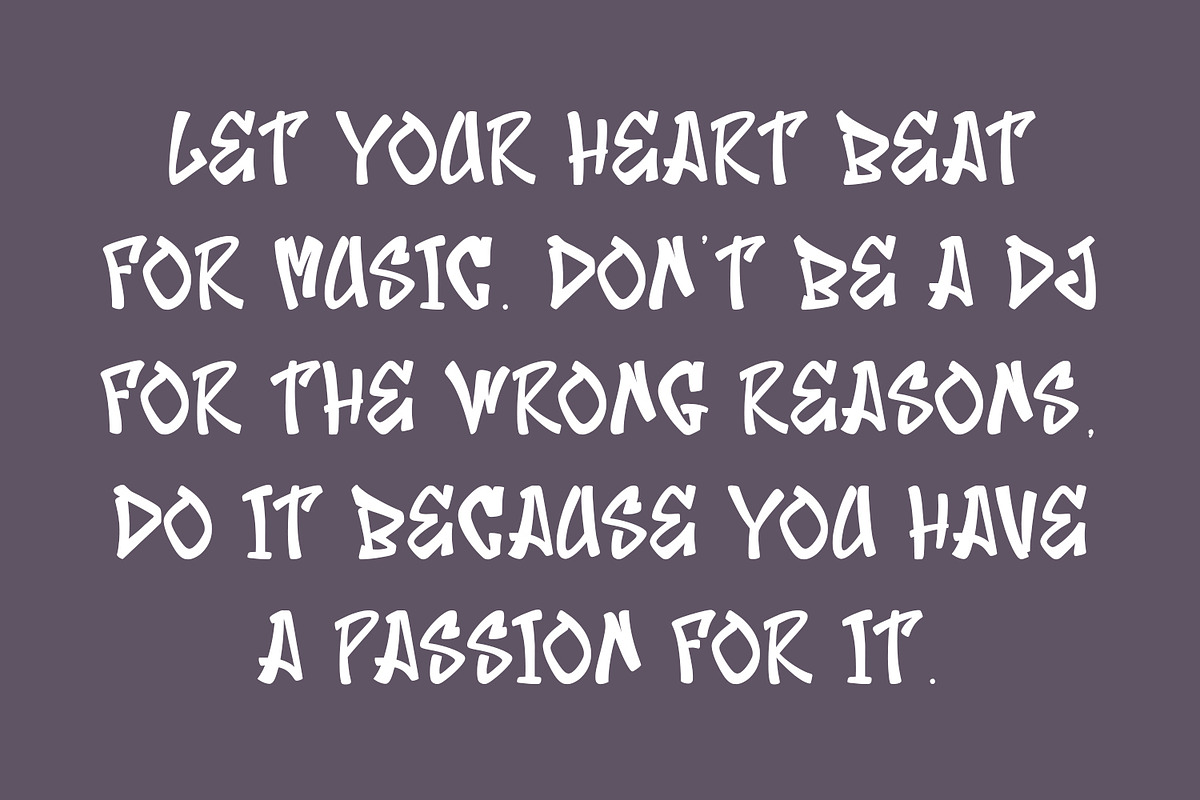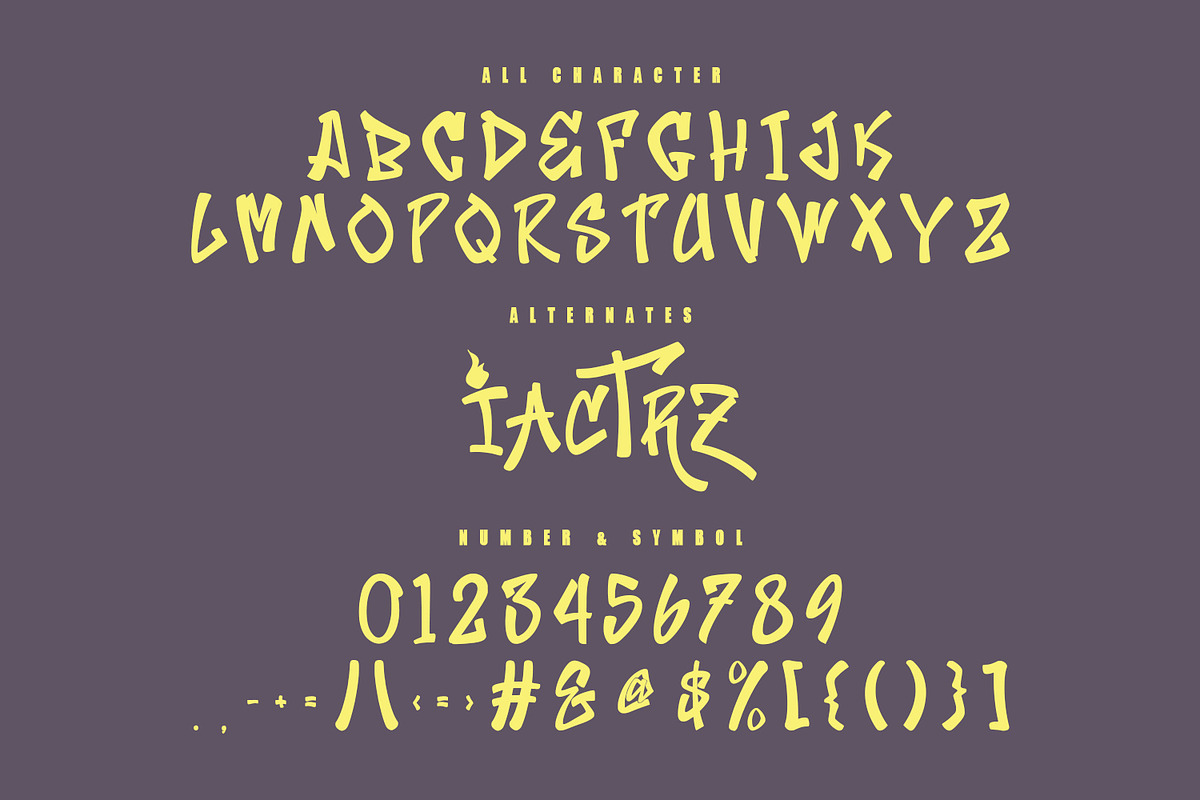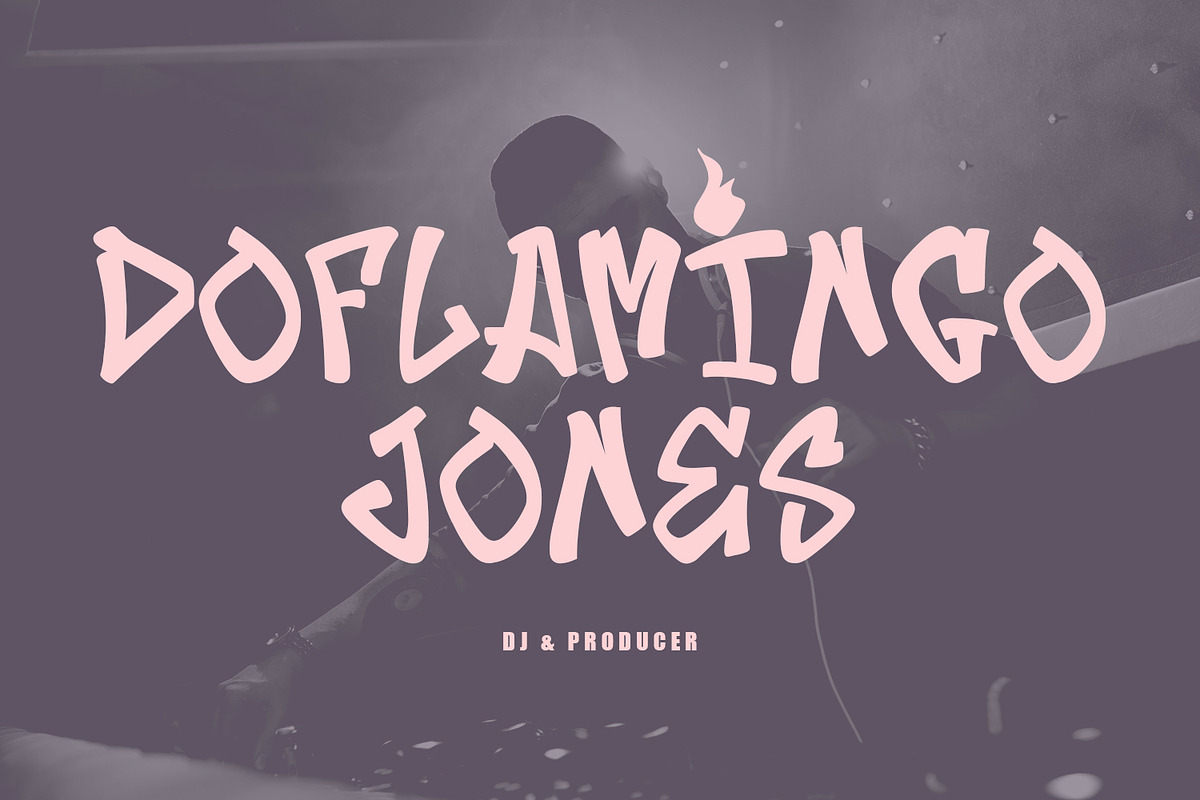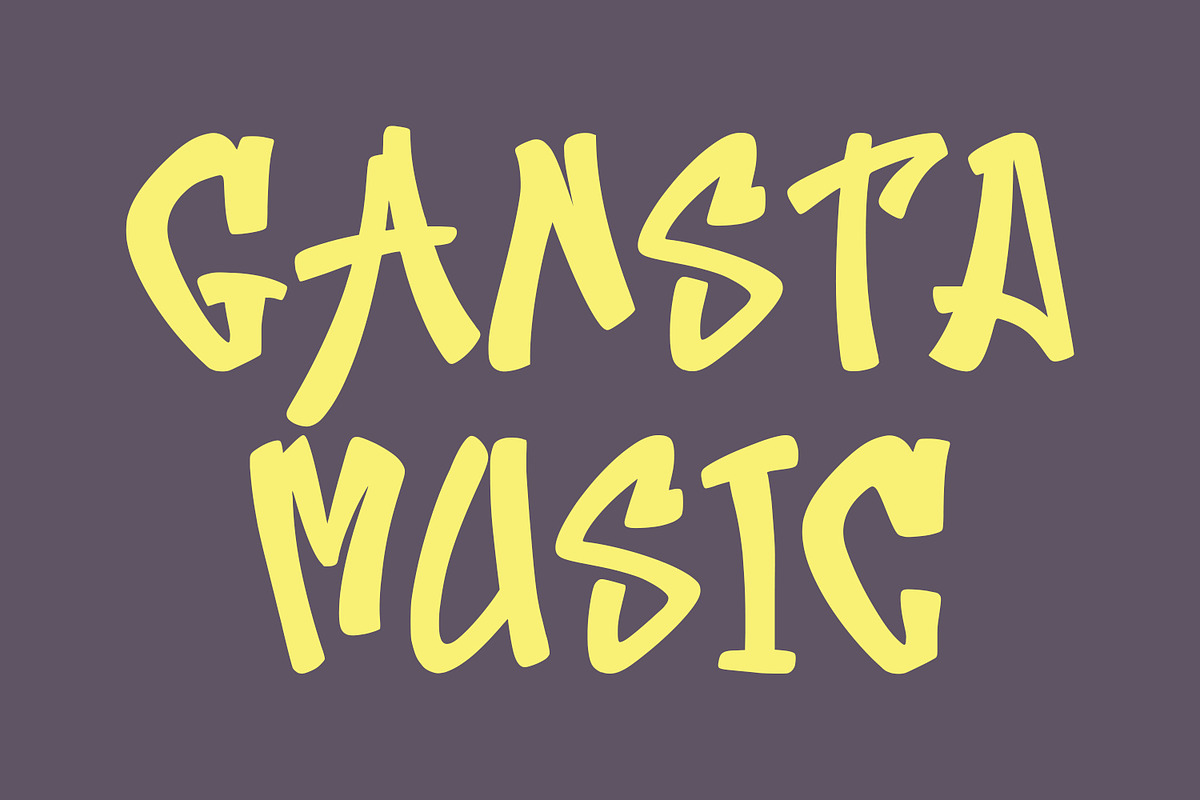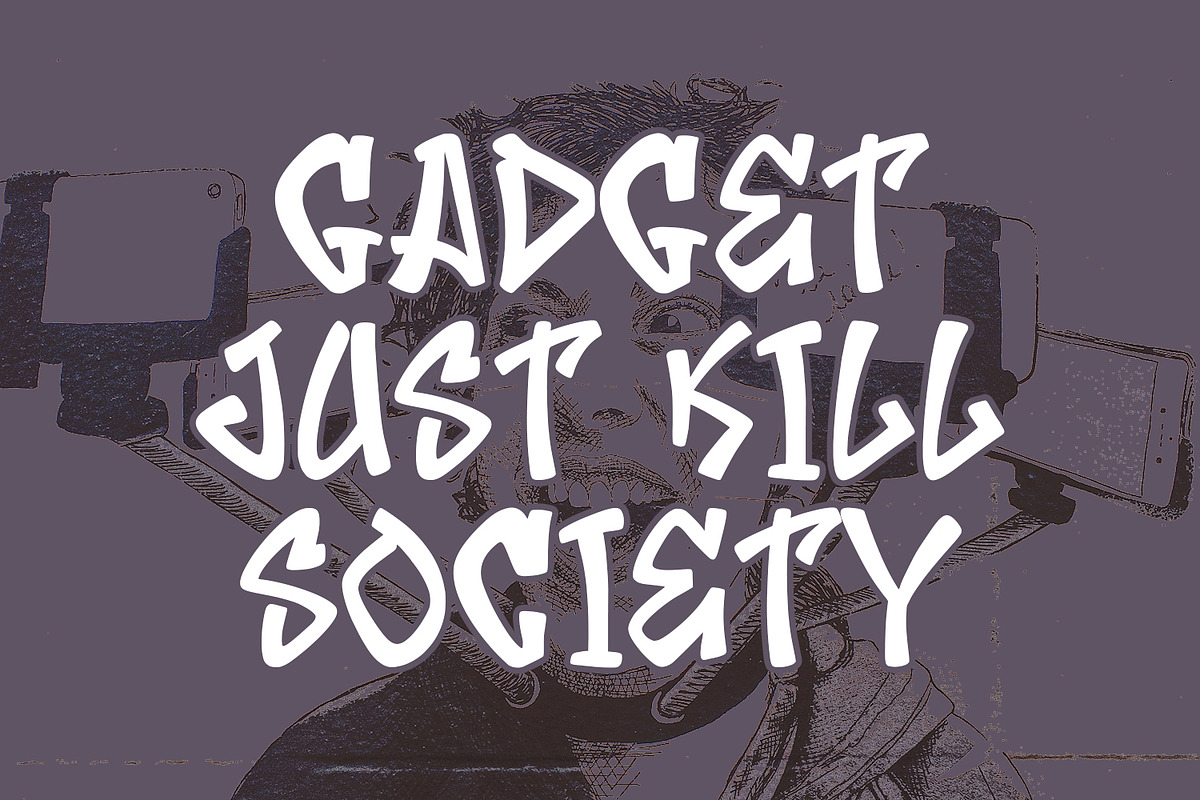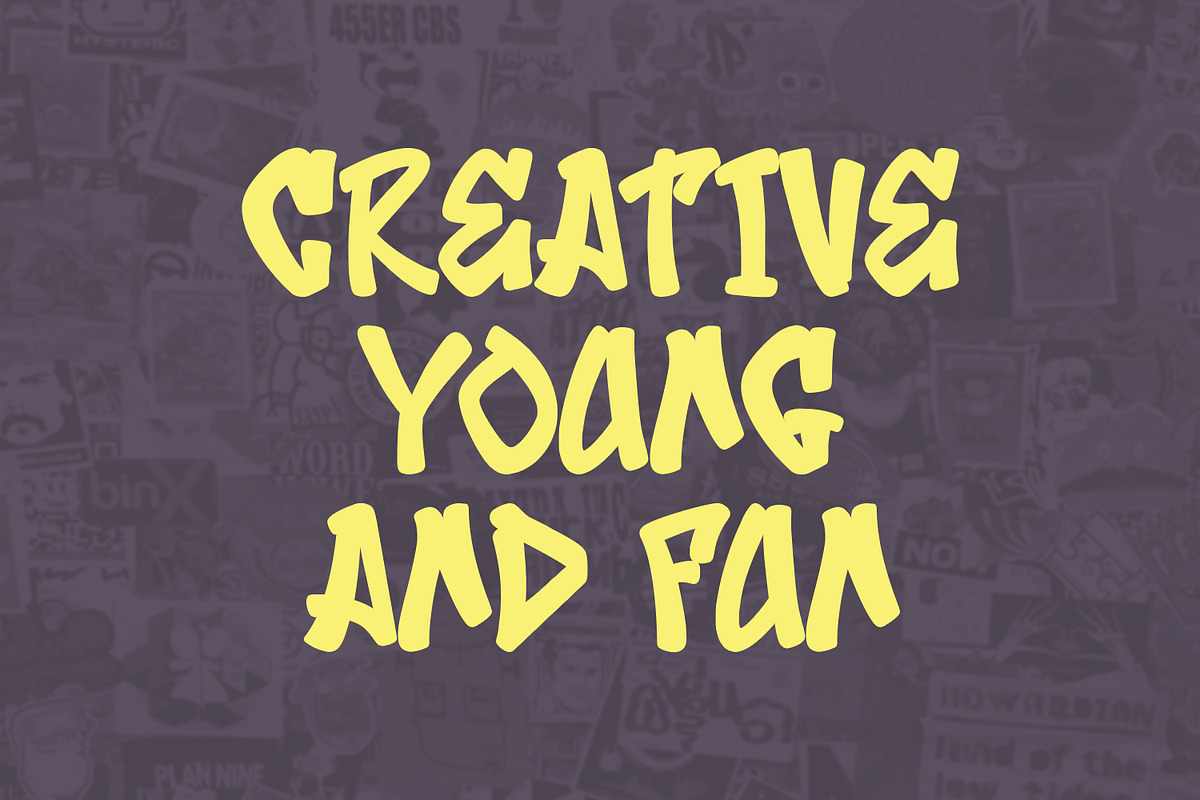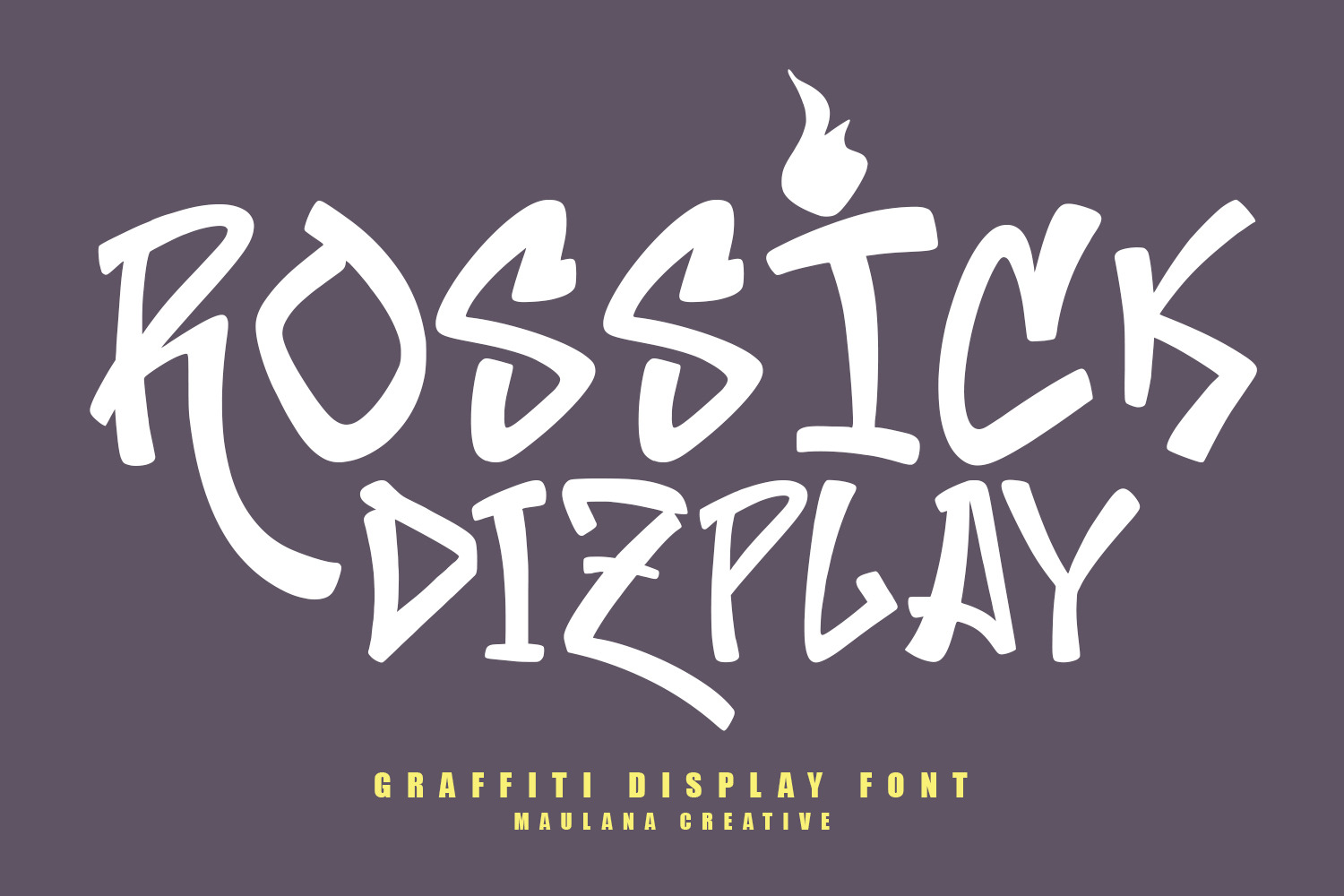
Rossick Graffiti Display Font
Rossick graffiti display font, fun character with a alternates. To give you an extra creative work. Rossick graffiti display font support multilingual language.